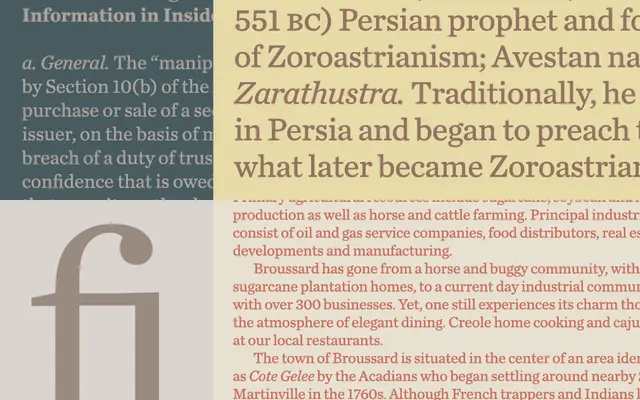
Chronicle Text
A graded transitional text serif from H&Co, drawn in four grades so newspaper and magazine designers can hold a consistent colour across different papers and printing conditions.
A transitional text serif from Hoefler & Co, designed to anchor editorial systems alongside Chronicle Display. Four grades, G1 to G4, progressively thicken the strokes so the same design can be tuned to different papers, inks and presses without changing weight on the page. Four weights with matching italics across each grade, plus Screensmart and Office cuts for screens and documents. Long body text in magazines and newspapers is the home setting, where its Scotch Roman roots read as familiar without being nostalgic.
H&Co classify Chronicle Text as a workhorse newspaper and magazine text serif, drawn in four optical grades so designers can compensate for different printing conditions, papers and inks while keeping a consistent colour on the page.